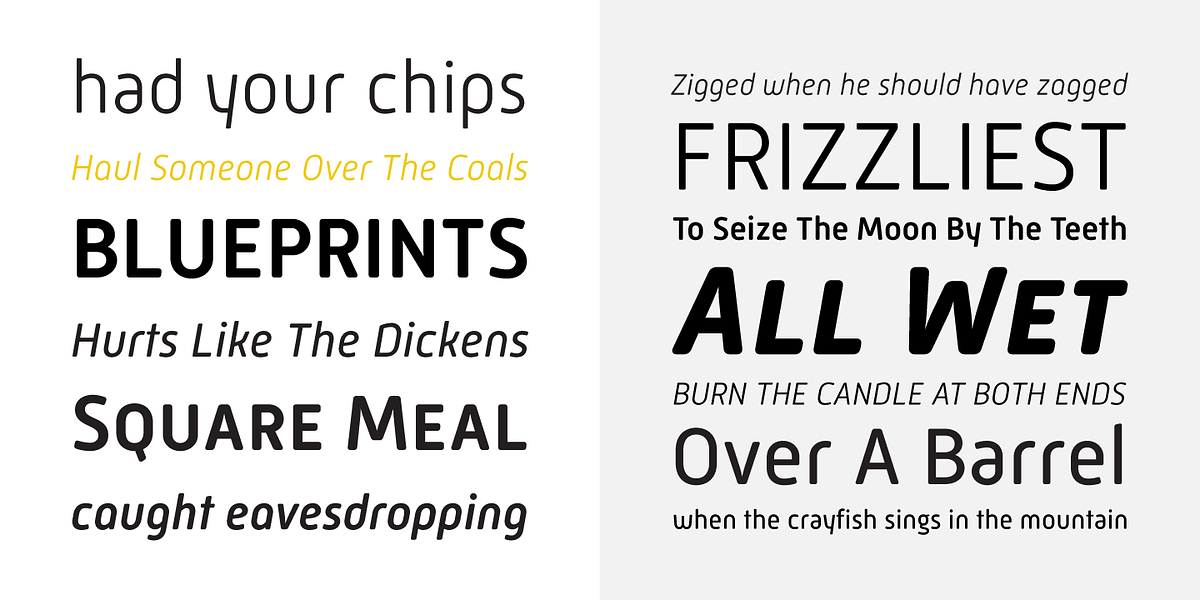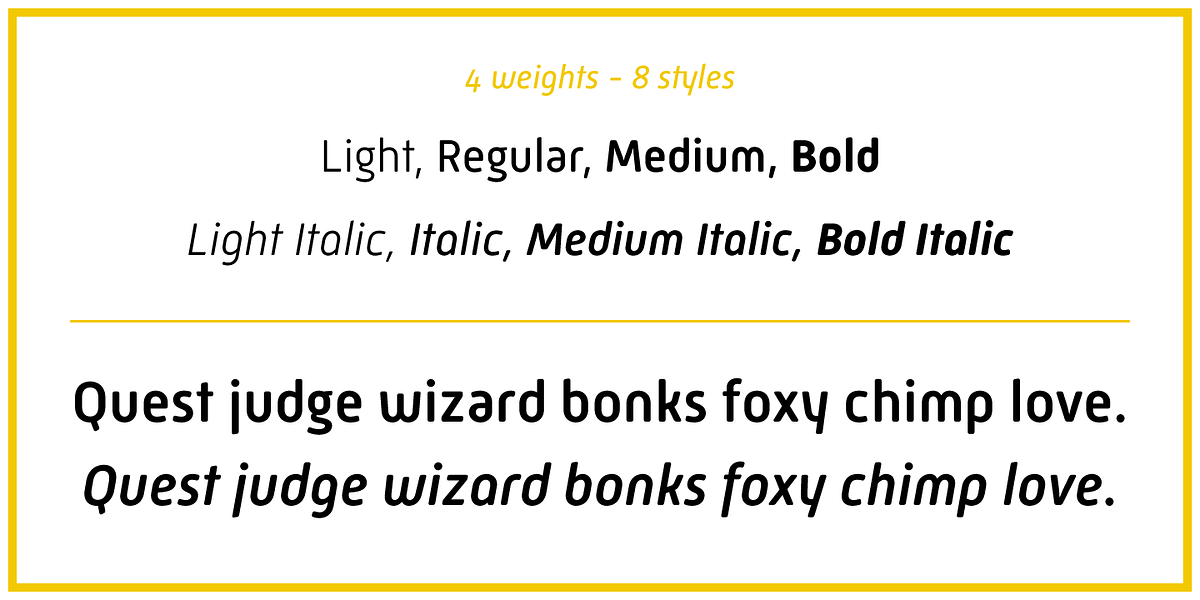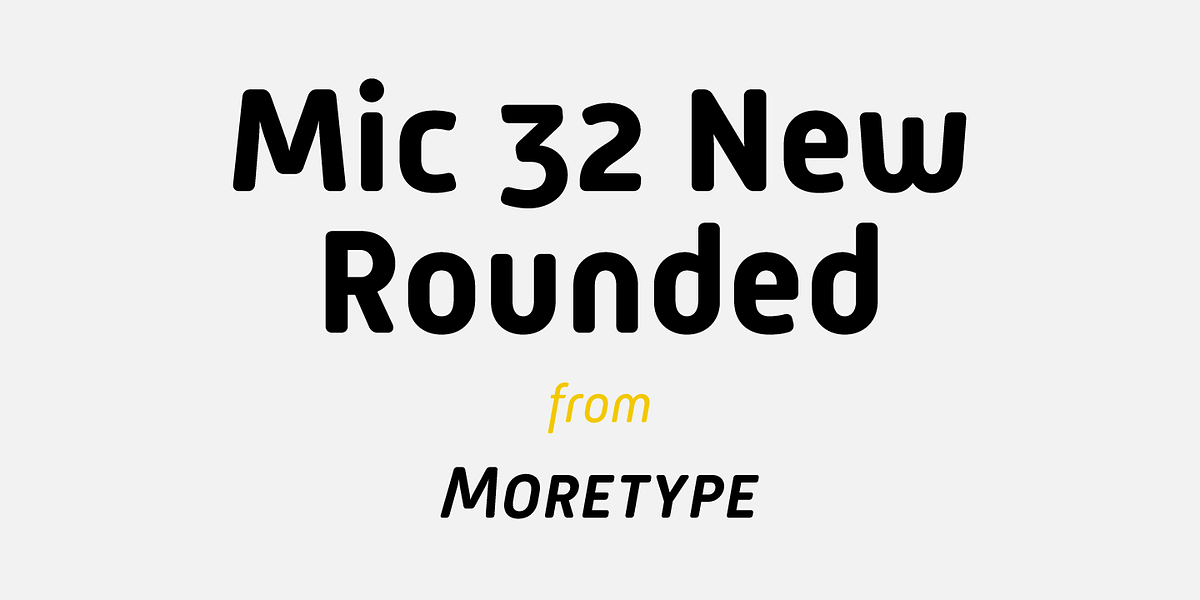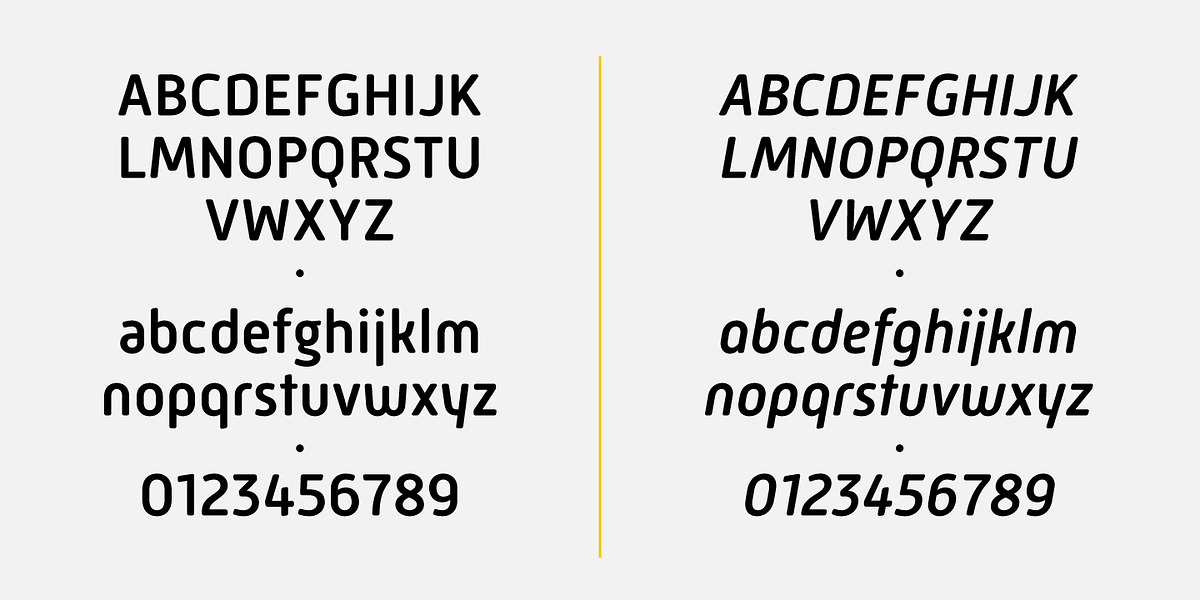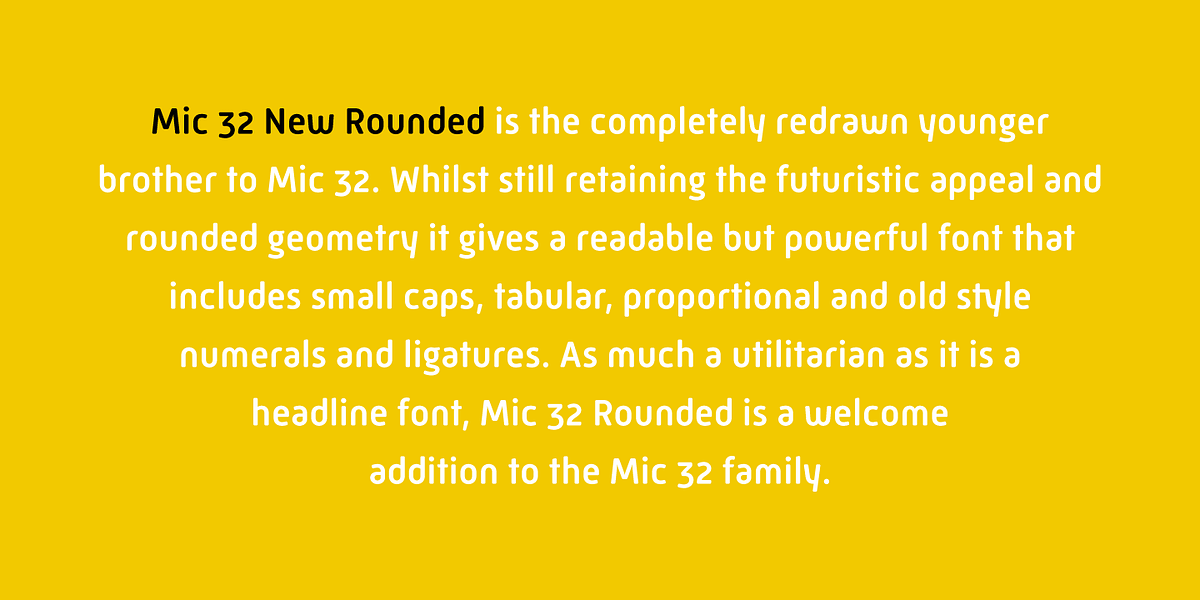
Mic 32 New Rounded
Mic32 New is a revival of the original Mic32 font. It retains its futuristic appeal while offering improved spacing and kerning. The font includes a range of OpenType features, such as small caps, tabular, proportional and old style numerals, and ligatures. It has been hand hinted for optimal web use.